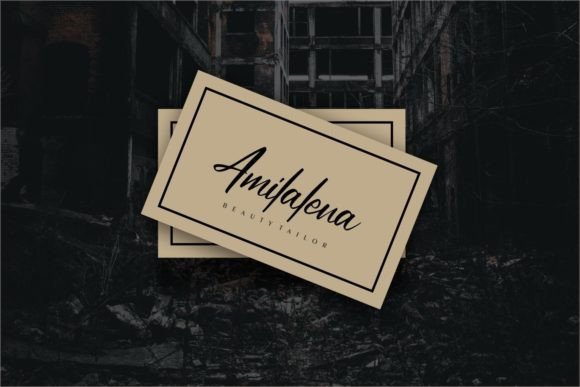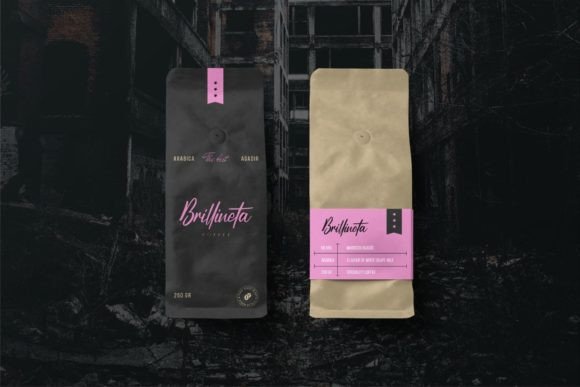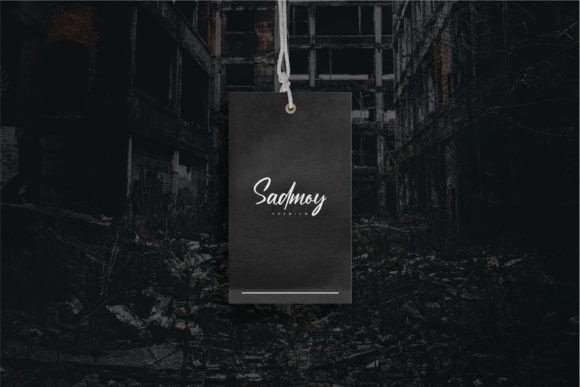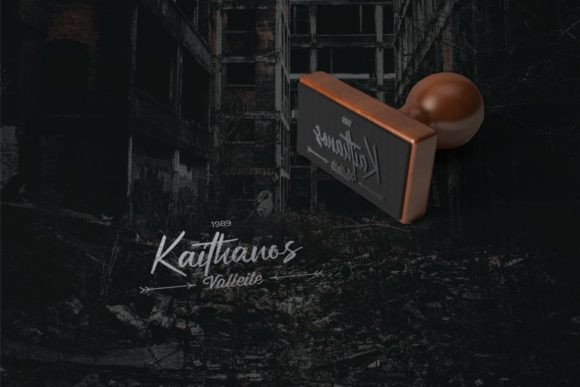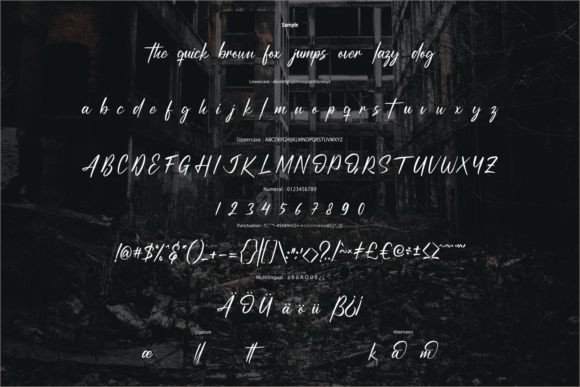
Discover the Unique Charm of Disttricka Font
Are you tired of using the same old fonts in your designs? Look no further than Disttricka, a modern and cool handwritten script font that’s sure to capture your heart. With its incredibly distinct and timeless style, Disttricka is the perfect choice for designers and crafters looking to add a touch of elegance and sophistication to their work.
The Story Behind Disttricka
Disttricka is more than just a font – it’s a work of art. Crafted with precision and passion, this beautiful script font is designed to inspire creativity and bring a fresh perspective to your designs. Whether you’re working on a branding project, a wedding invitation, or a social media post, Disttricka is the perfect companion to help you create spectacular designs that stand out from the crowd.
What Makes Disttricka So Special?
So, what sets Disttricka apart from other fonts? Here are just a few of its unique features:
- Distinctive Style: Disttricka boasts an incredibly distinct style that’s both modern and timeless. Its elegant strokes and beautiful letterforms make it perfect for designs that require a touch of sophistication.
- Handwritten with Love: Unlike generic fonts, Disttricka is a handwritten script font that’s been crafted with love and care. Its unique imperfections and quirks give it a personal touch that’s hard to replicate.
- Versatile: Disttricka is an incredibly versatile font that can be used in a wide range of designs, from elegant wedding invitations to bold branding projects.
How to Use Disttricka in Your Designs
Using Disttricka in your designs is easy! Here are a few tips to get you started:
- Pair it with Other Fonts: Disttricka pairs beautifully with other fonts, making it easy to create stunning contrast and visual interest in your designs.
- Experiment with Colors: Disttricka looks amazing in a wide range of colors, from bold and bright to soft and pastel. Experiment with different colors to find the perfect combination for your design.
- Play with Sizes: Disttricka is a font that can be used in a variety of sizes, from large and bold to small and delicate. Experiment with different sizes to add visual interest to your design.
Why Designers and Crafters Love Disttricka
Disttricka has quickly become a favorite among designers and crafters, and for good reason. Here are just a few reasons why:
- Easy to Read: Despite its elegant and cursive style, Disttricka is incredibly easy to read, making it perfect for designs that require a clear and concise message.
- Unique and Memorable: Disttricka is a font that’s sure to leave a lasting impression. Its unique style and distinctive letterforms make it perfect for designs that require a touch of personality.
- High-Quality: Disttricka is a high-quality font that’s been crafted with precision and care. Its smooth and elegant strokes make it perfect for professional designs.
In conclusion, Disttricka is a modern and cool handwritten script font that’s sure to capture your heart. With its incredibly distinct and timeless style, Disttricka is the perfect choice for designers and crafters looking to add a touch of elegance and sophistication to their work. Whether you’re working on a branding project, a wedding invitation, or a social media post, Disttricka is the perfect companion to help you create spectacular designs that stand out from the crowd.